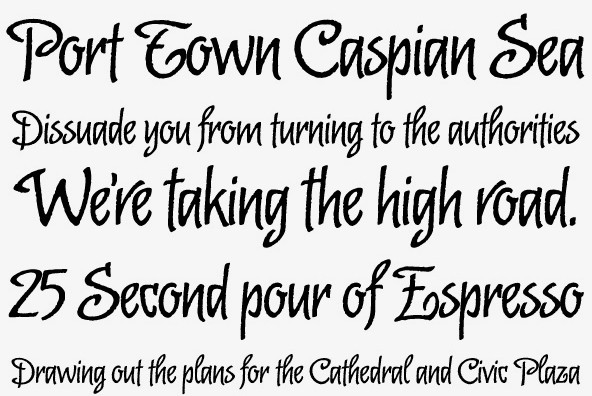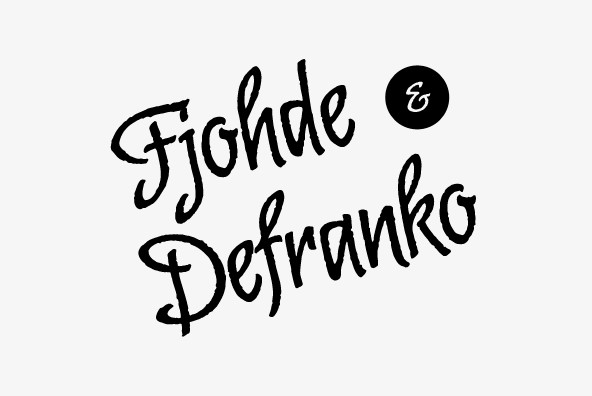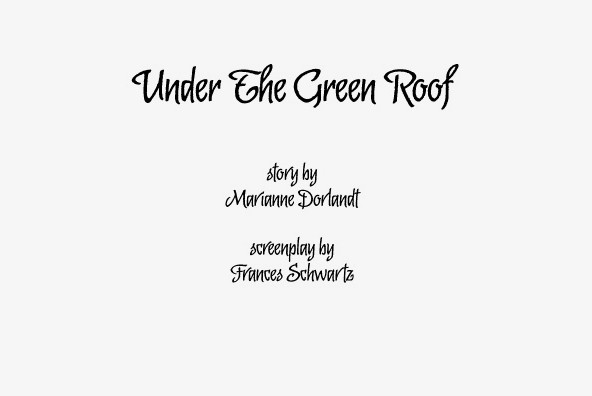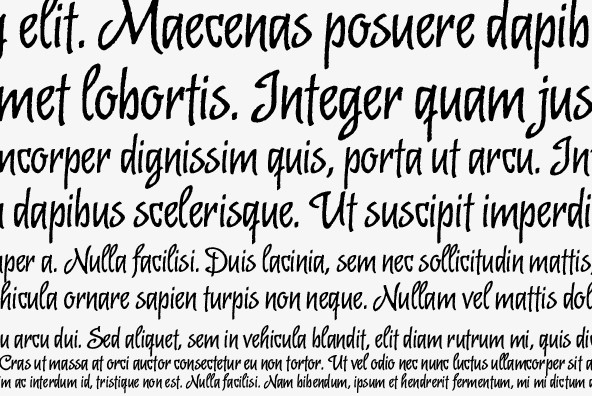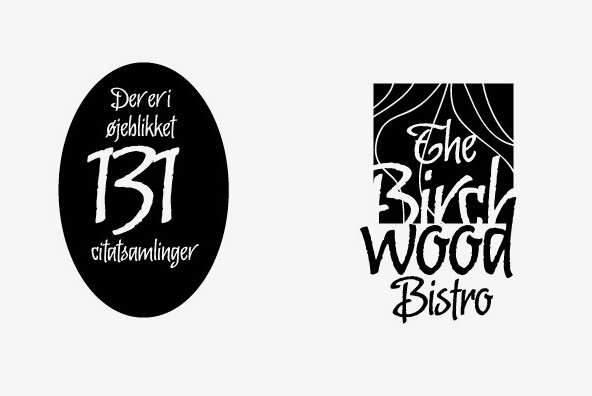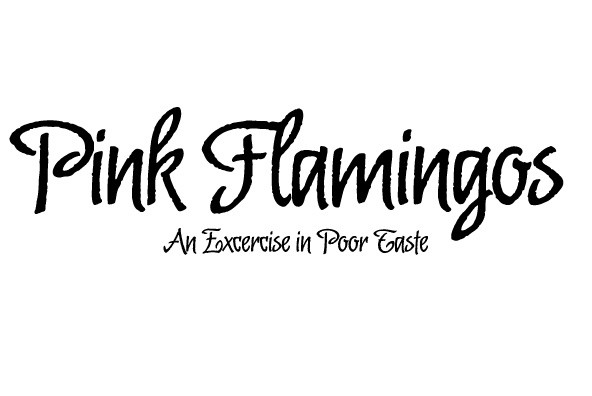
Malambo
The master of the dancing brush, Angel Koziupa, and the node-obsessed perfectionist, Alejandro Paul, offer up another bucket of fun with Malambo. This time Koziupa allows his brush to jitter one whole millimeter, and Paul digitizes with two eyes instead of his usual three. Follow your heart, but consume an ounce of peroxide first. Full of energy and cheeky mischief, Malambo tells the eye amusing stories of mirrorless shaving accidents, wine mistakenly poured over the morning cereal, and someone who trips over his own shadow on the dance floor, yet keeps on dancing. And dancing is what this typeface is all about. Malambo is a traditional Argentine dance performed by the gauchos (the Argentine equivalent of 19th century North American cowboys). The gauchos are still around in the less than touristic areas of Argentina. And although they dance quite passionately and make the heartiest parrillas, most of them probably don't know what a font is. But you know, and we know. And that's something. Malambo was selected as the Best in show display font at the Biennial Letras Latinas. Designed by Angel Koziupa and Alejandro Paul of Sudtipos.